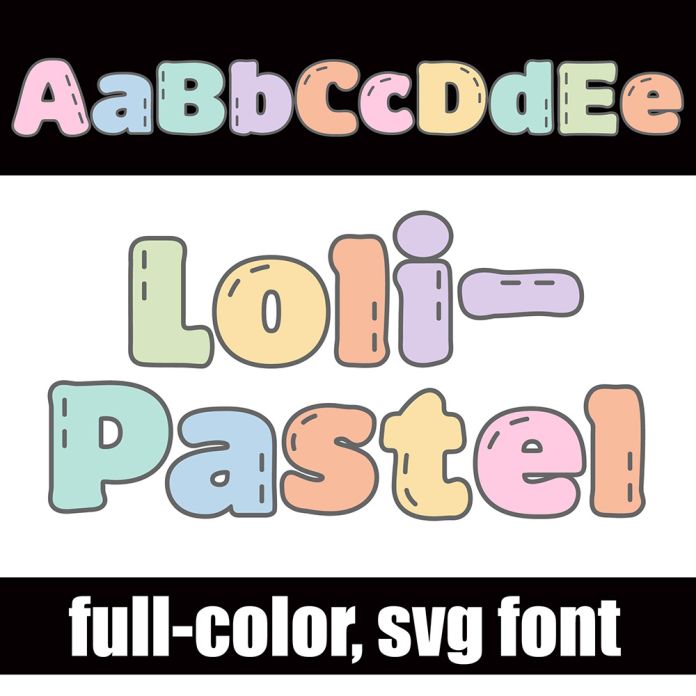
This full-color font features a toon-like font in pastels. There is an alt case with an additional color of each letter. This font works best for titles, displays, posters and more. Please note color fonts will show as black in non compatible programs. This font type is compatible with Silhouette Studio.